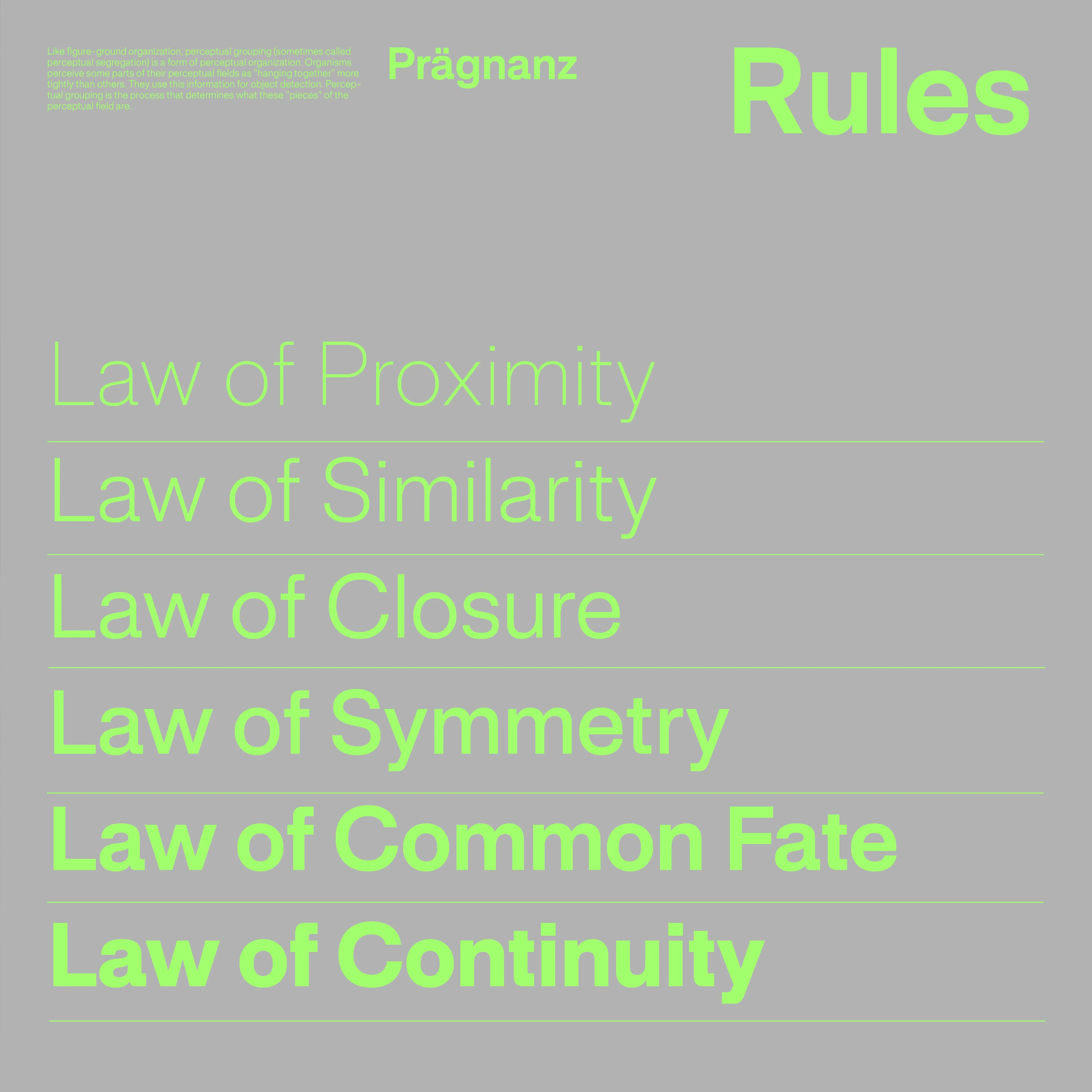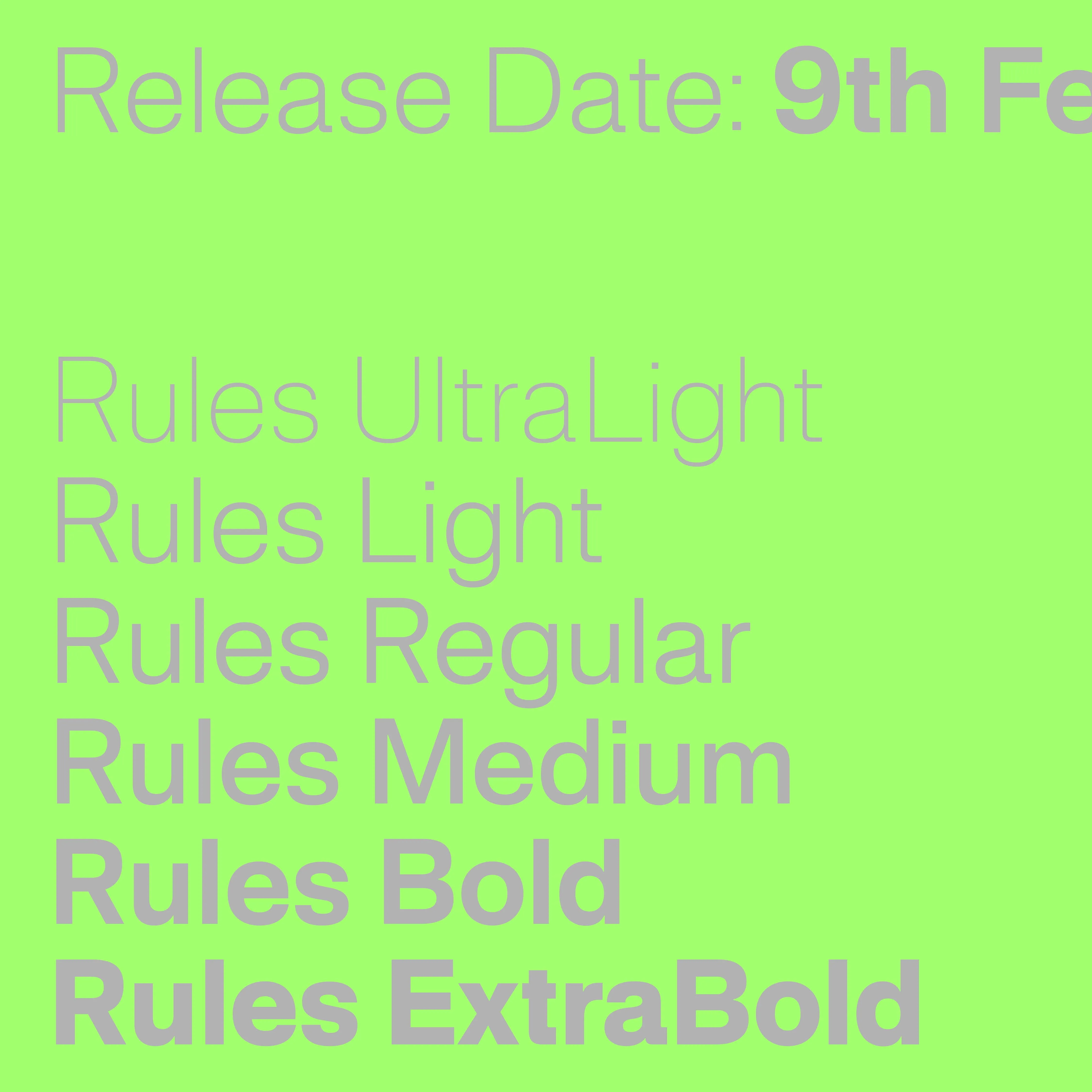
Rules
Rules font is a contemporary interpretation of the neo grotesque font era, with an edge. Rooted in Swiss Modern type inspiration and built with a strong structure in the respect of type design tradition. Rules font features modern capitals (optically-matching widths). Next to no contrast in counter-forms. Closed edged terminals and an elegant twist bringing a colorful aspect to optical gray in text layouts. The whole font family is topped off with squared endings, giving the whole font family a great pace.
Rules font is a modern neo-grotesque font family with an edge.
This font family was especially thought for body texts in print, web & app uses and still performs greatly when used as a main headline or display fonts for posters as well as in signage system.
Designed by
Matthieu Salvaggio , Léon Hugues , Tim Vanhille , Guido Ferreyra
Released in
2024